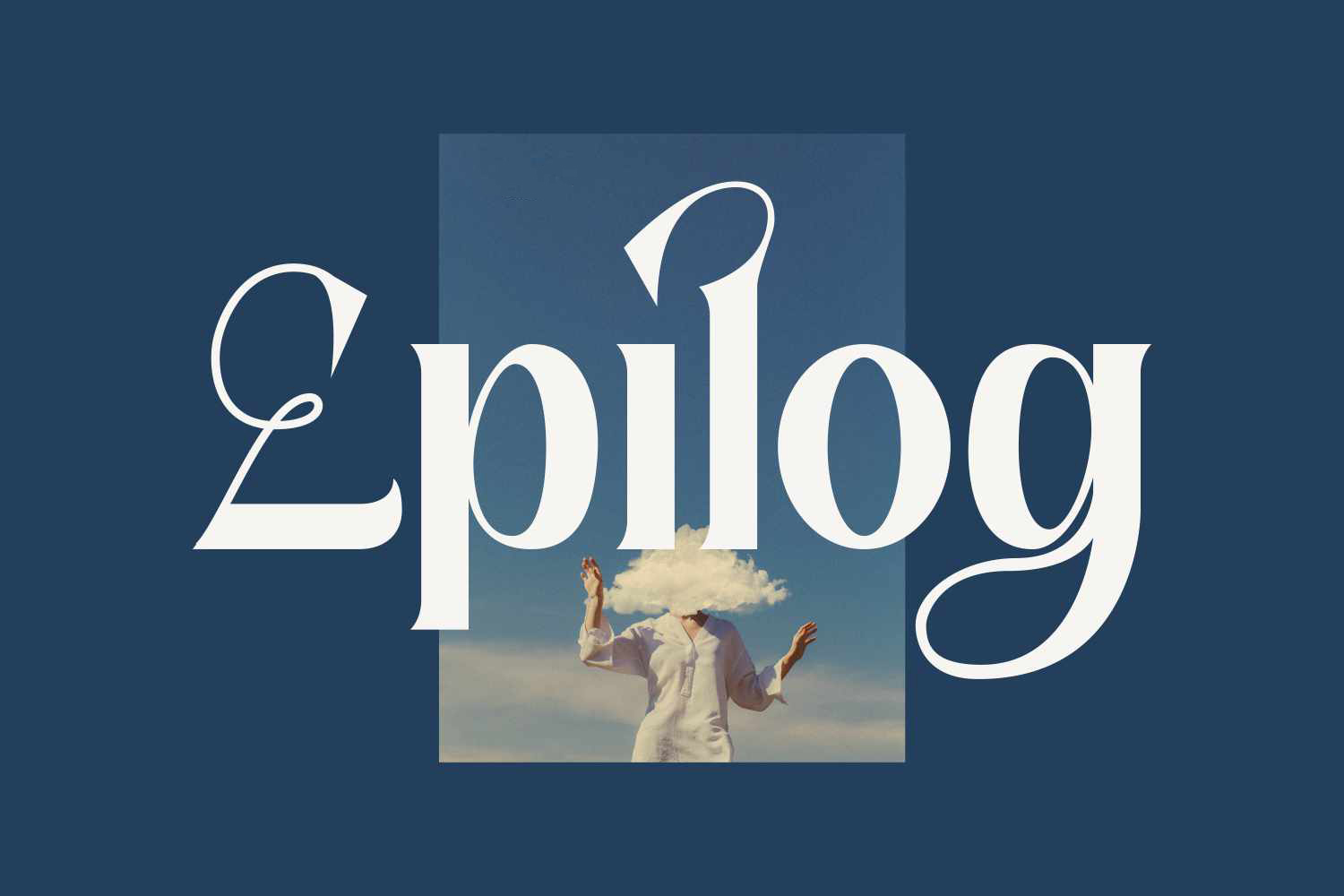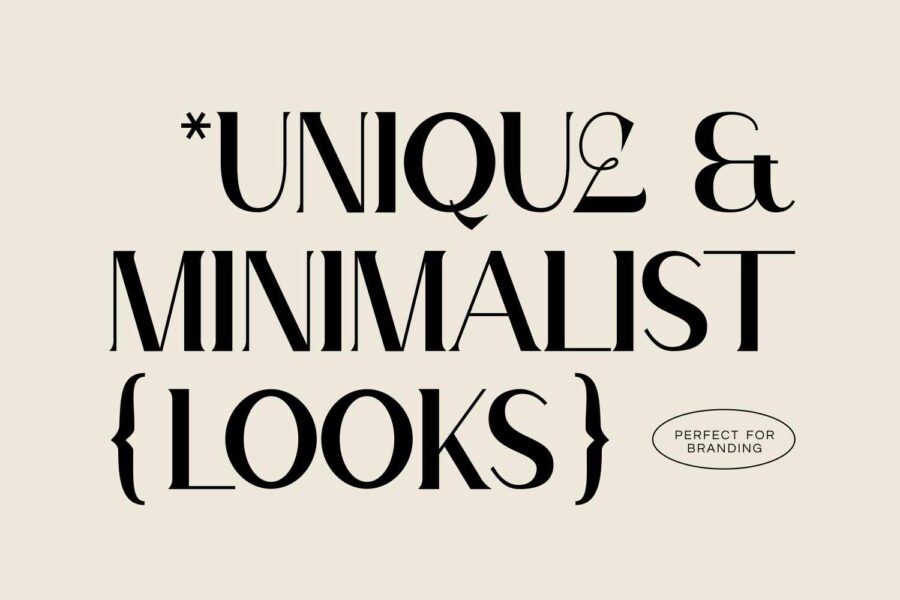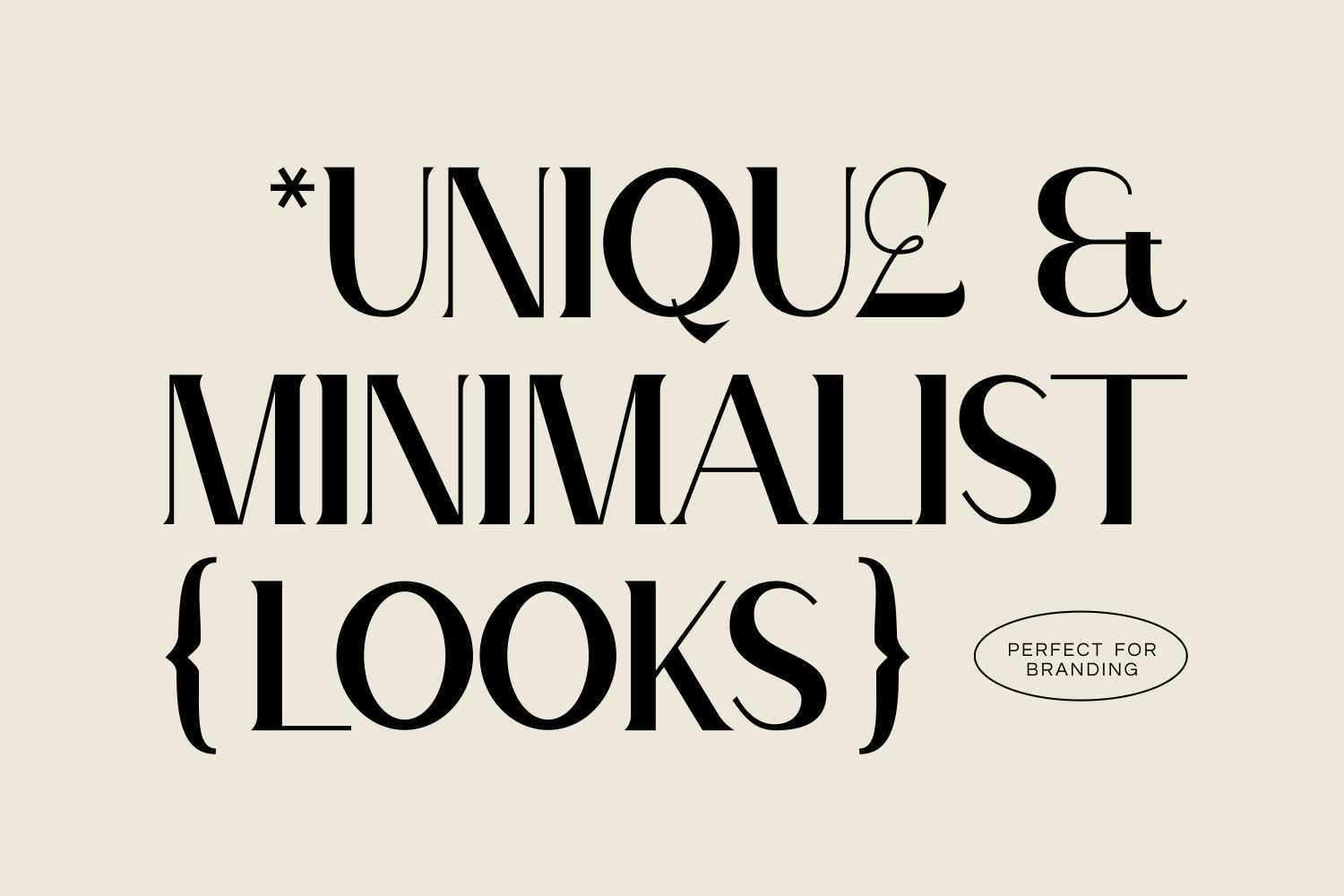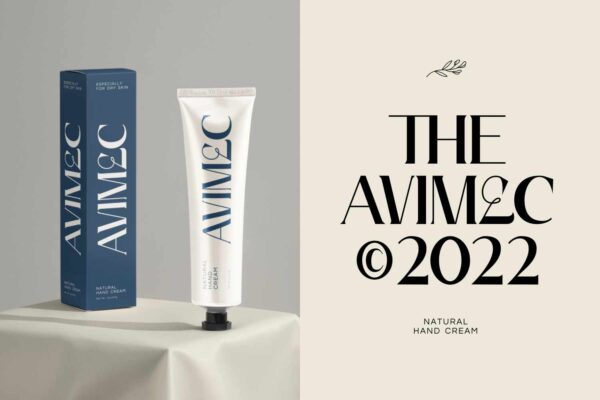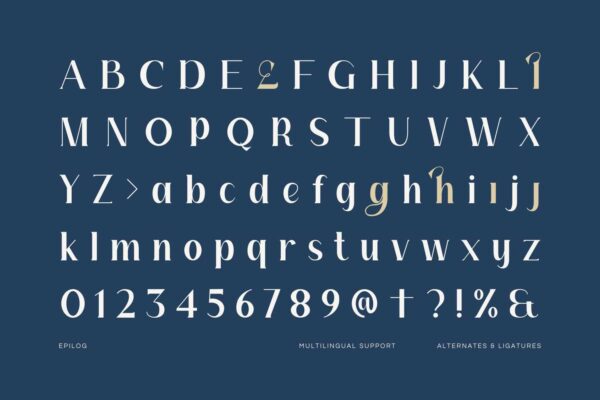
Epilog
Epilog is a sophisticated serif display font with a unique blend of elegance and modern artistic flair. Its stylish curves, distinctive ligatures, and creative alternates make it perfect for projects that demand a refined yet contemporary aesthetic. Each letter is thoughtfully designed to balance minimalism with expressive character, giving your text a truly exclusive look.
Perfectly suited for branding, editorial layouts, packaging, and high-end creative projects, Epilog adds personality and sophistication to any design. Whether used in fashion, lifestyle, or artistic branding, this font elevates visual storytelling with its graceful forms and versatile style.